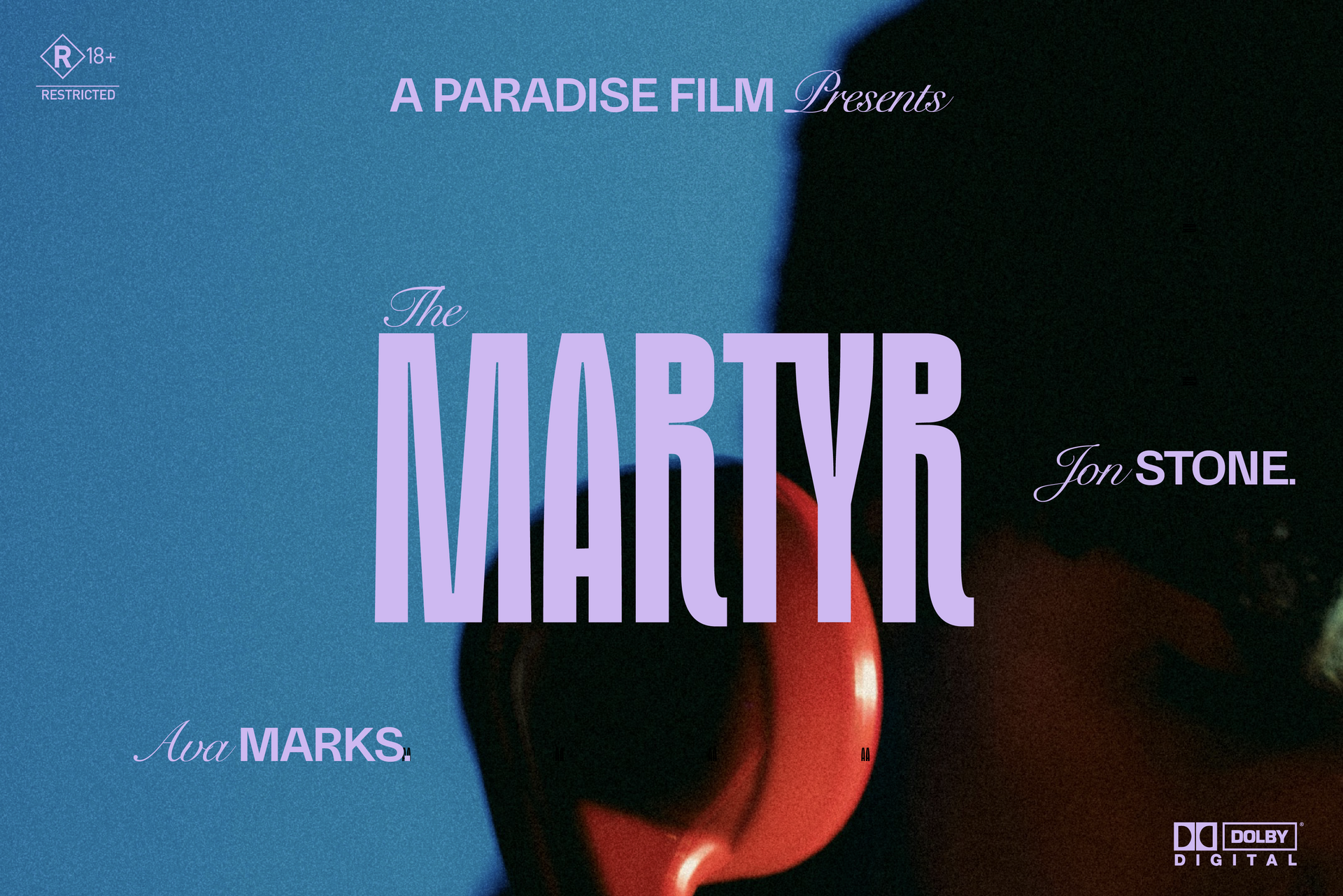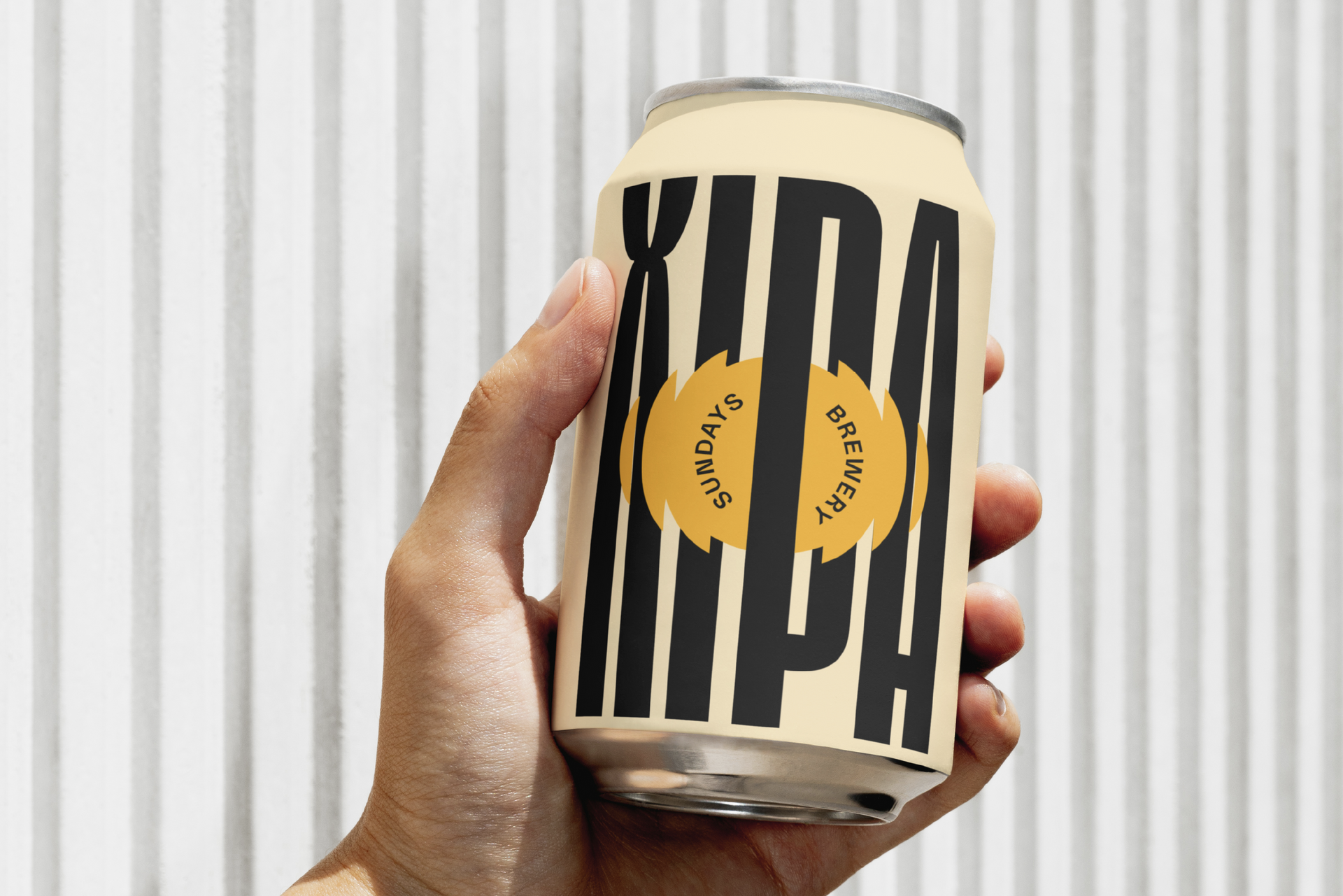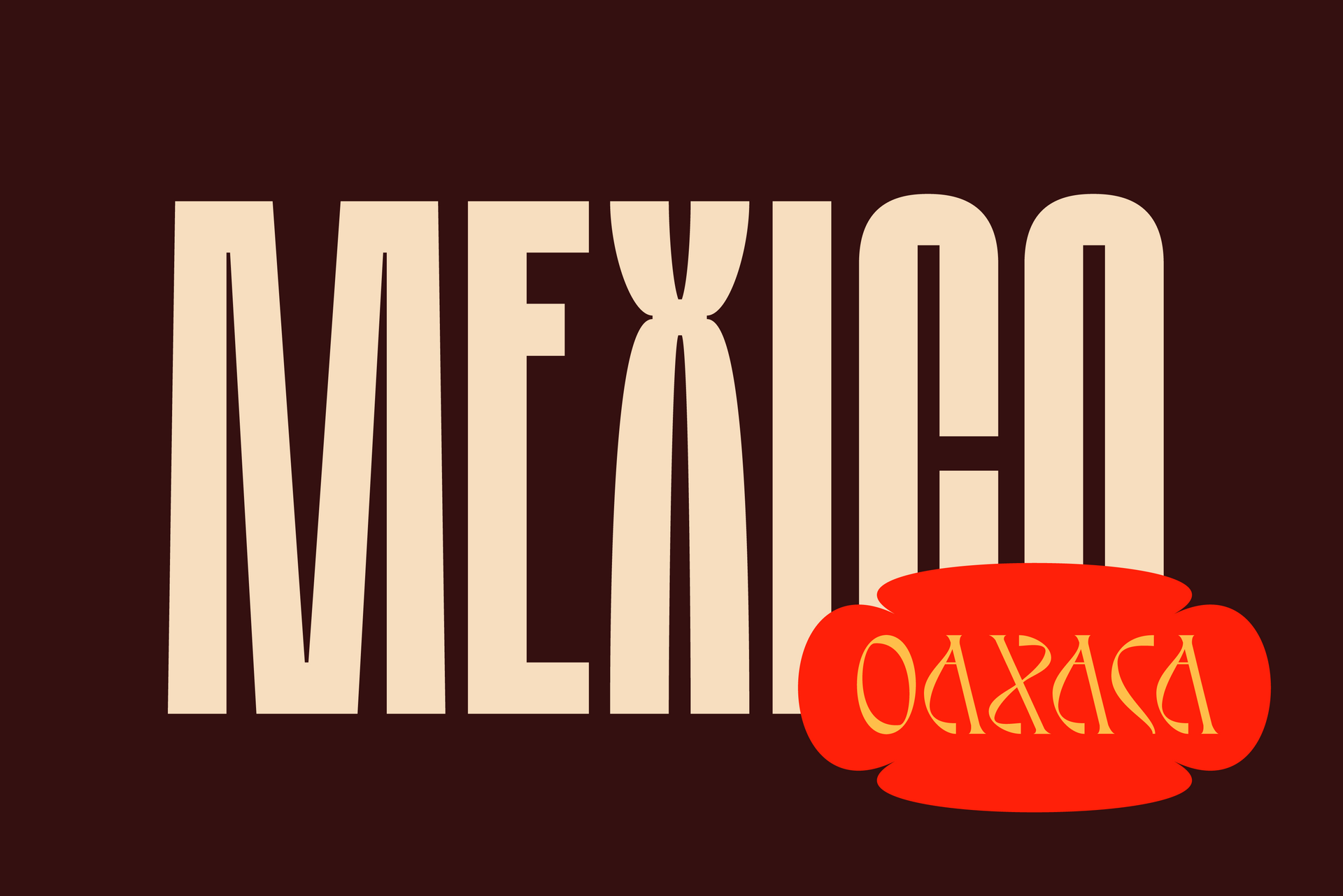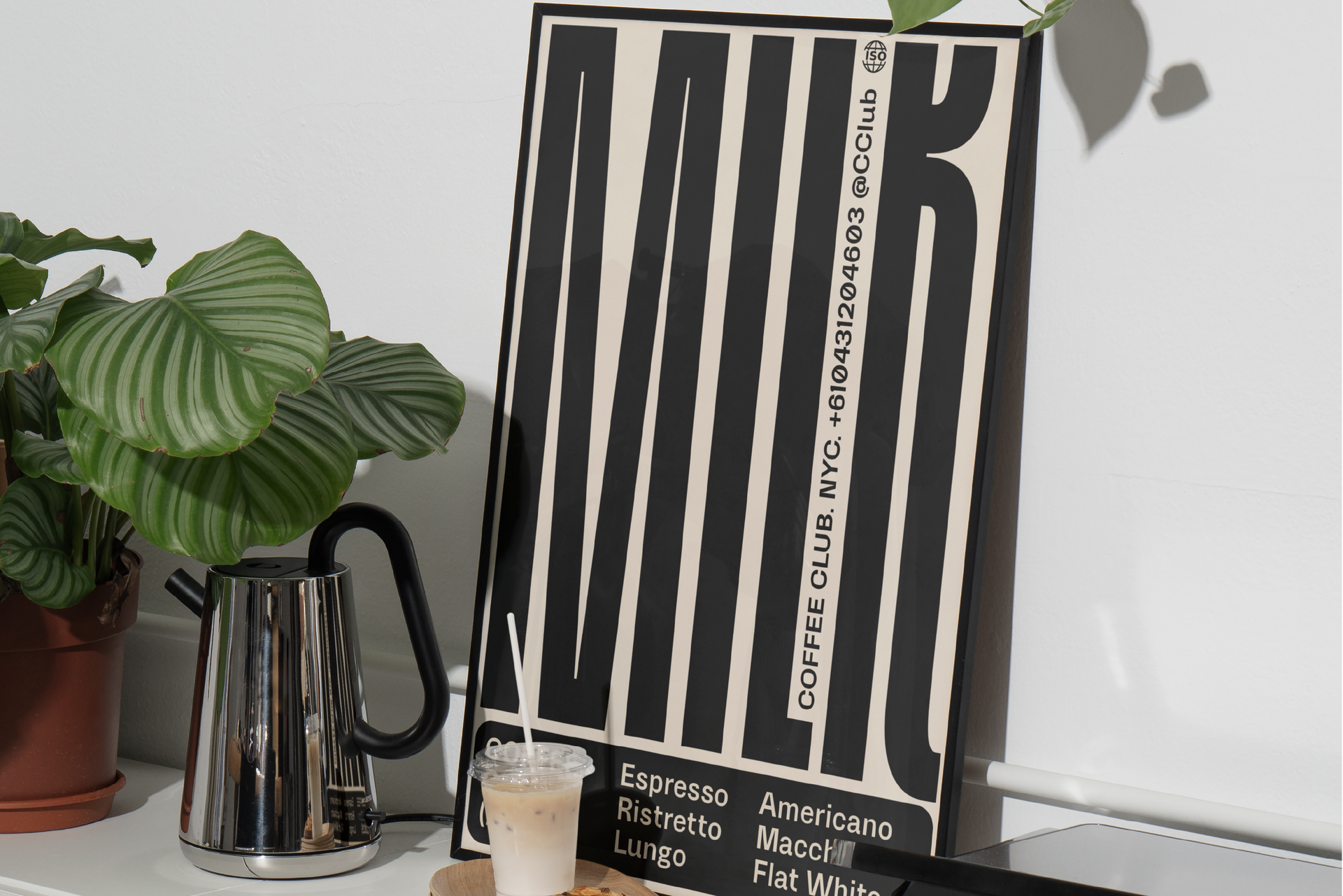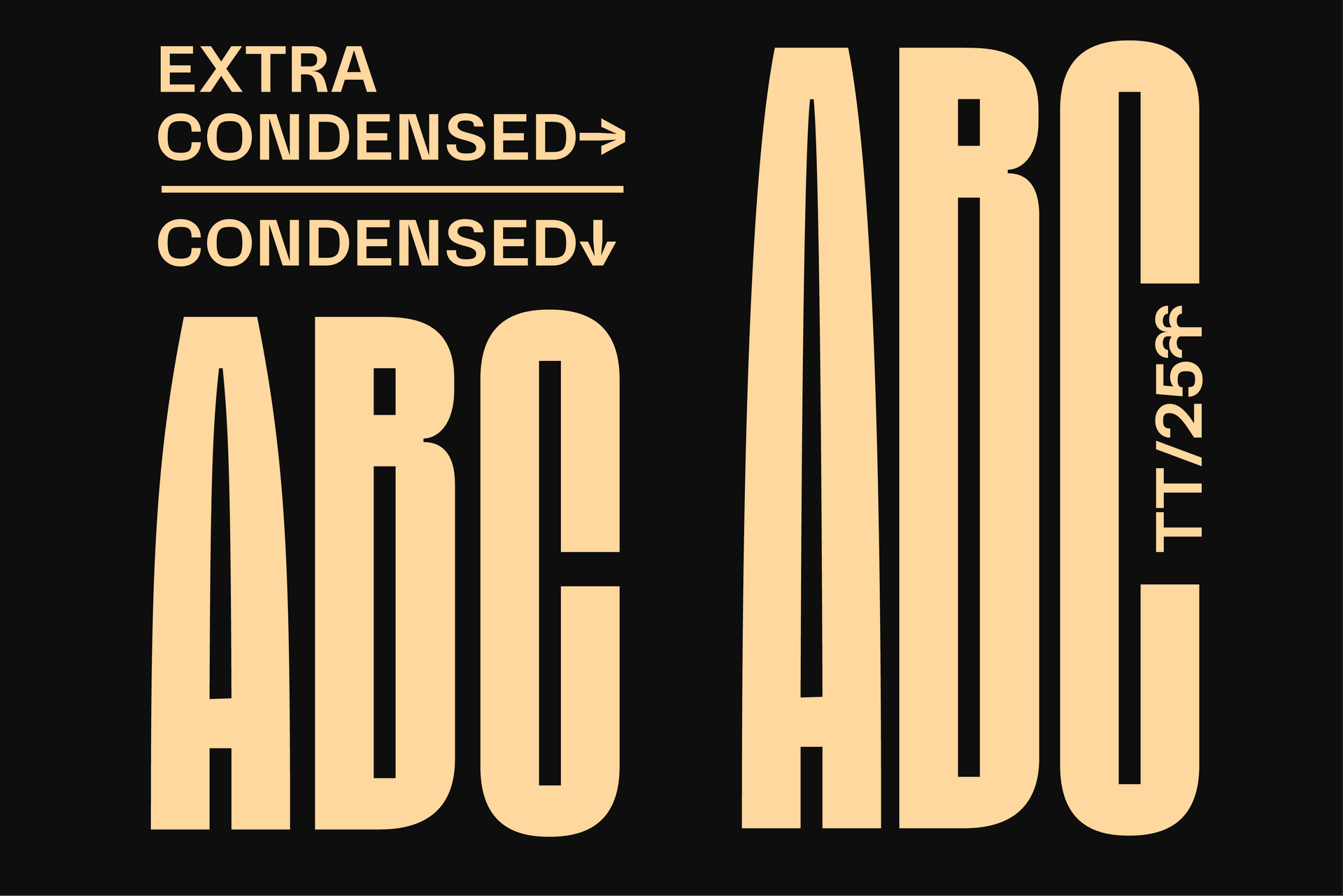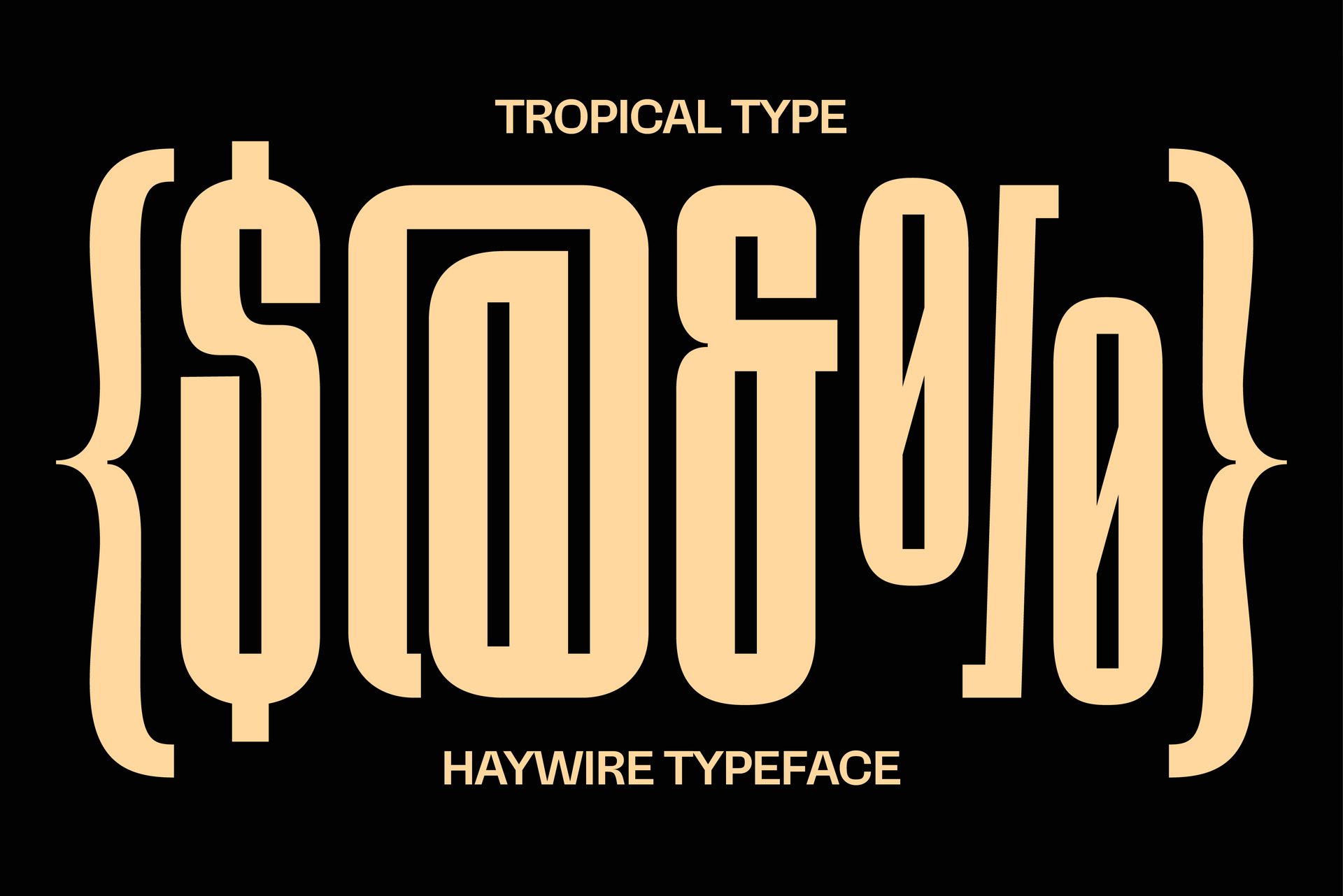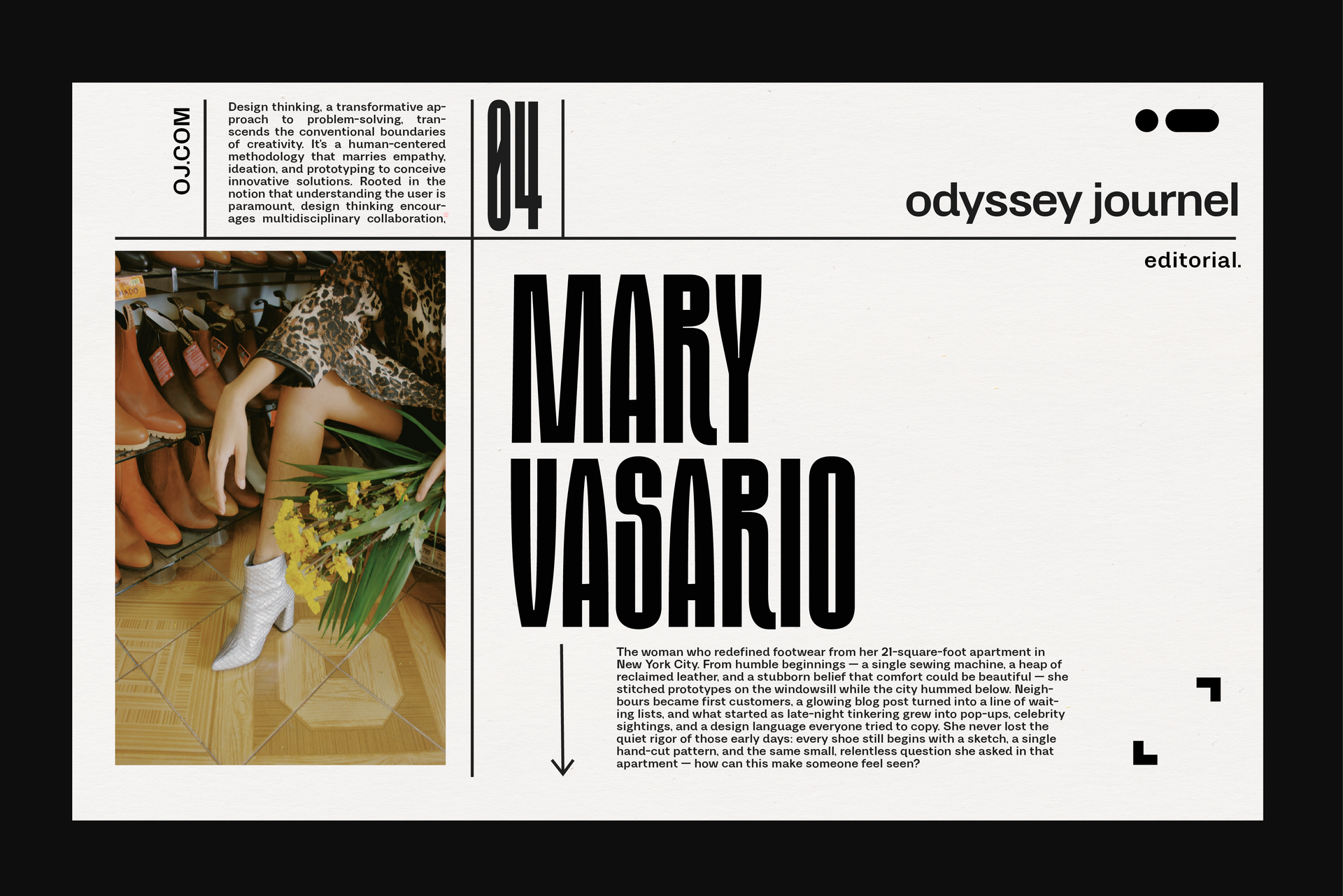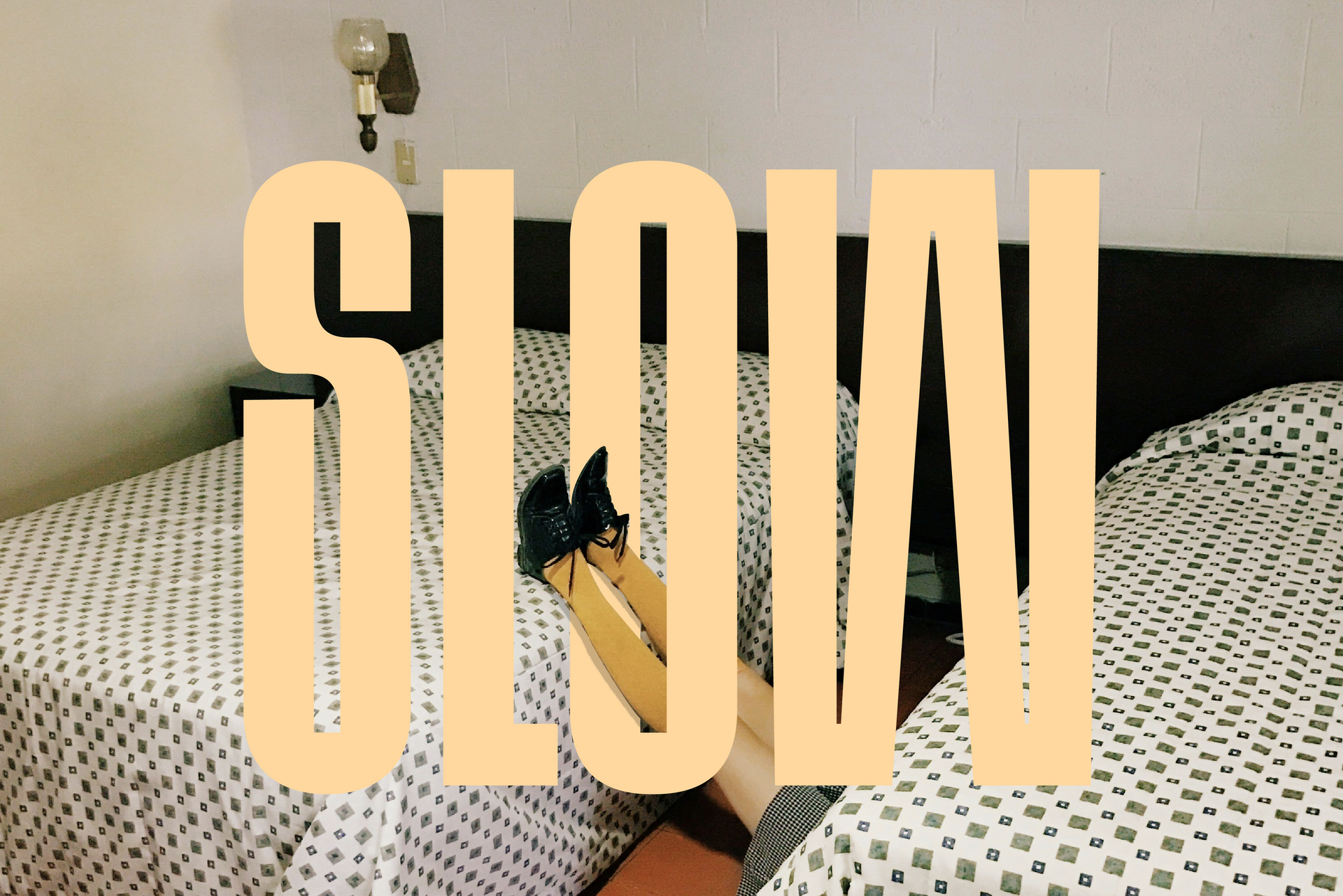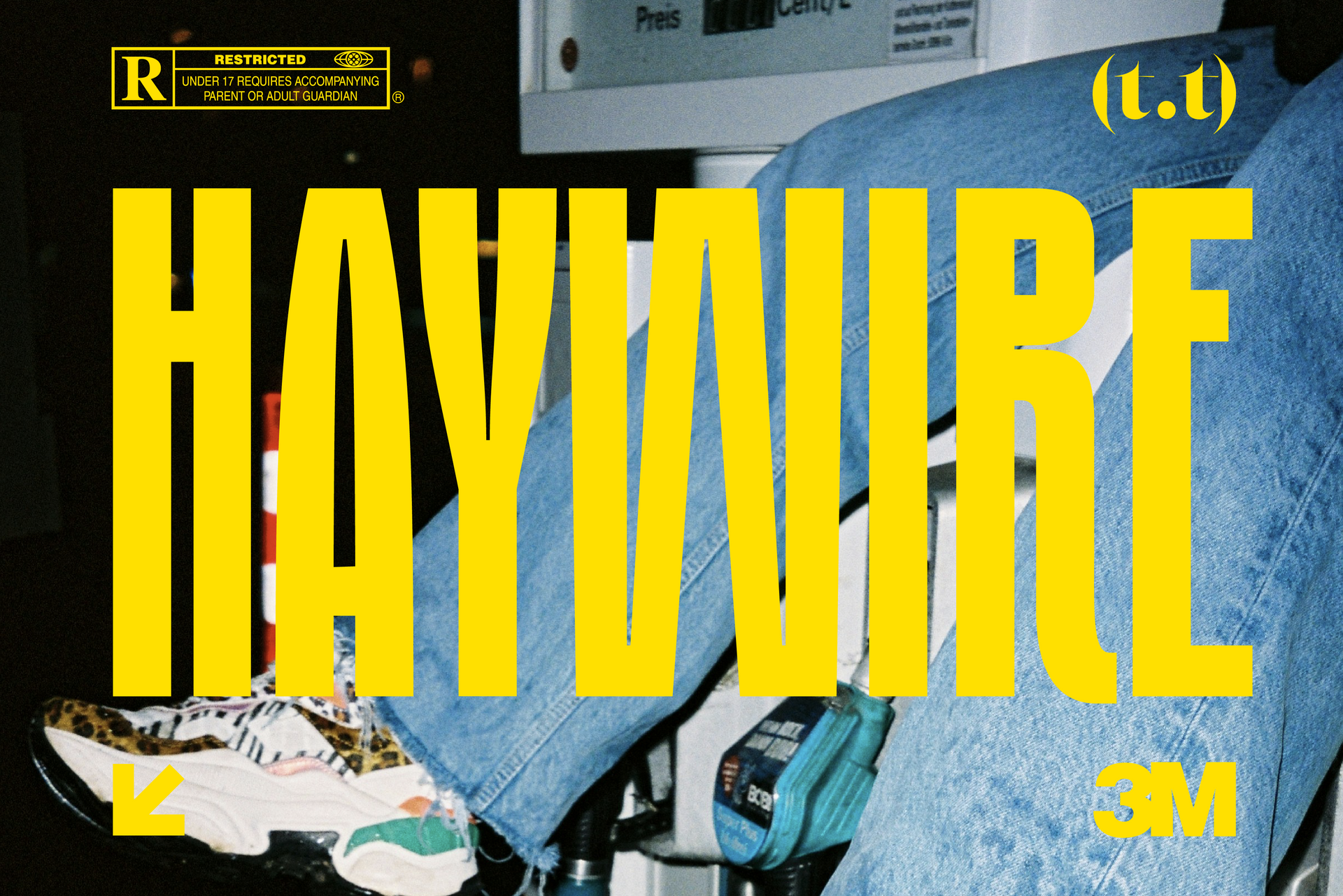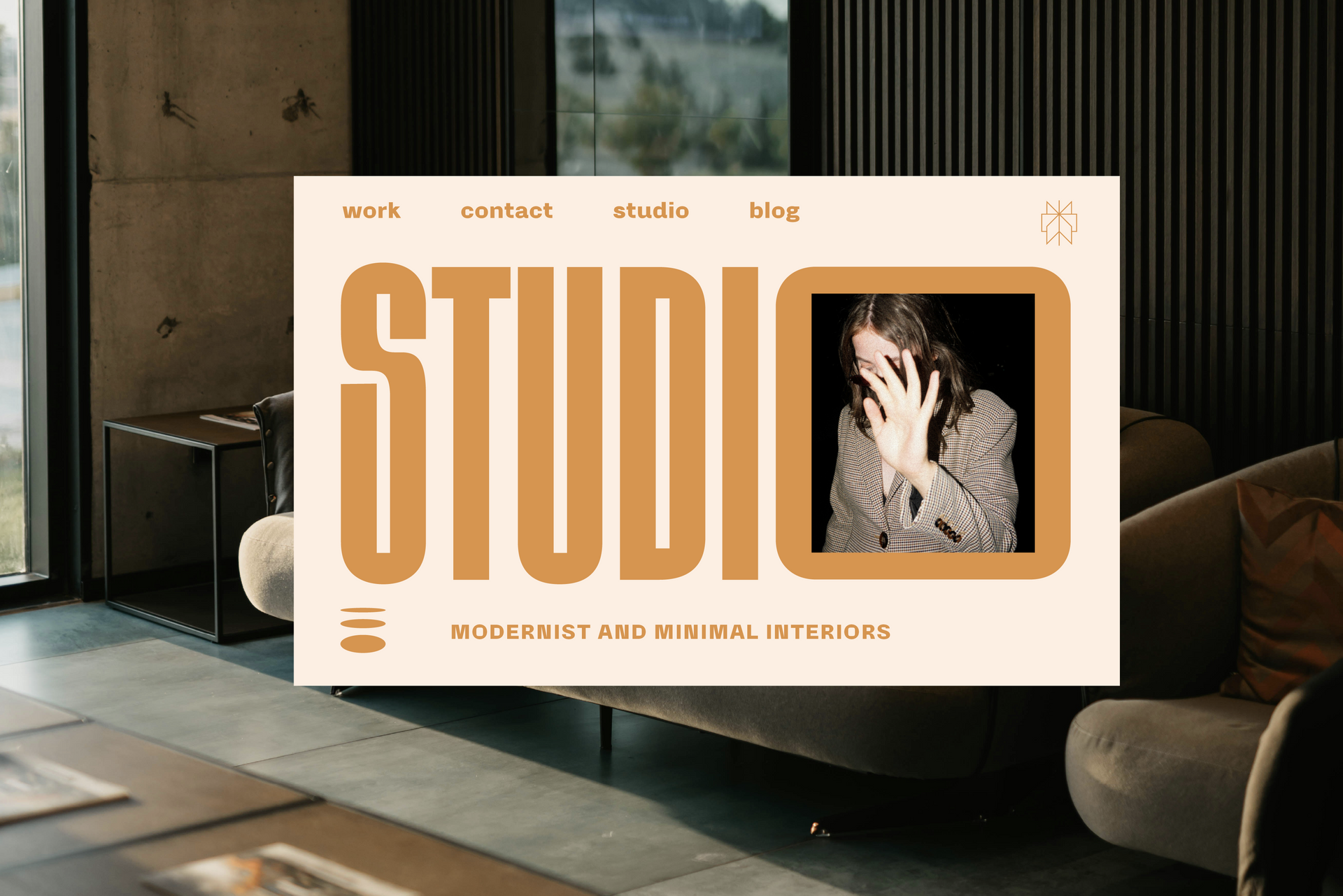
Haywire Condensed
Screens are getting long, ratios are getting tall! Every designer needs a bold condensed typeface to fill the void. Large type is in vogue right now. The internet is oversaturated and you need something bold to stand out. From web design to branding, add something lanky into your type collection!
Non English glyphs included:
Ą Á  À Ä Å Ã Æ Ć Ç Ę É Ê È Ë Í Î Ì Ï Ł Ń Ñ Ó Ô Ò Ö Õ Ø Œ Ś Š Ú Û Ù Ü Ý Ÿ Ź Ż